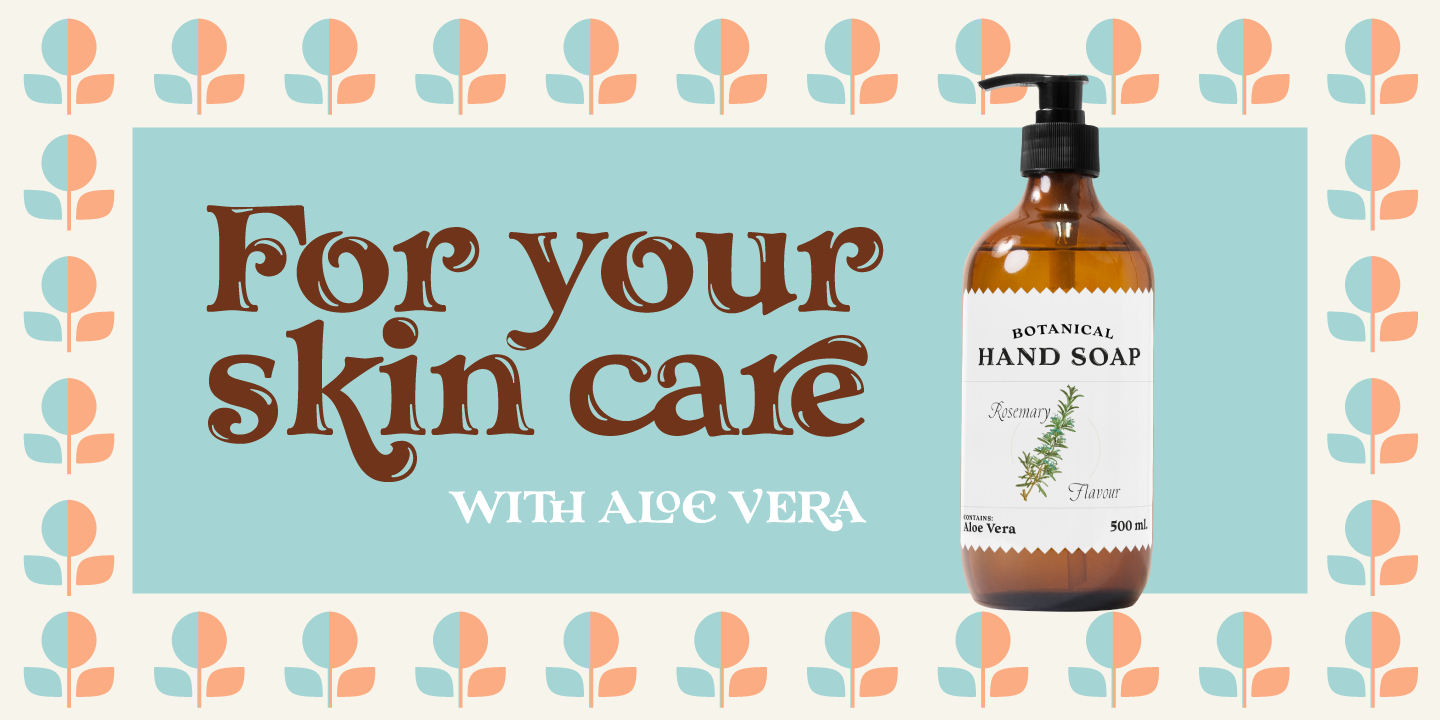
The Nostalgia Font is perfect for vintage branding projects, retro poster designs, classic book covers, old-fashioned signage, heritage brand logos, antique shop materials, nostalgic greeting cards, historical documentaries, vintage wedding invitations, and timeless advertising campaigns.
What makes the Nostalgia Font exciting is its remarkable ability to transport viewers back in time through carefully crafted letterforms that embody the elegance and sophistication of bygone eras. This enchanting typeface features classic proportions, traditional character shapes, and timeless design elements that evoke memories of handwritten letters, vintage manuscripts, and cherished family heirlooms. Each character tells a story of craftsmanship and attention to detail from an age when typography was truly an art form.
The Nostalgia Font family includes regular, italic, bold, and ornamental versions, along with decorative flourishes, vintage ornaments, and period-appropriate symbols that enhance its authentic historical appeal across various design applications.
Whether you're creating heritage brand identities or designing period-accurate materials, Nostalgia Font Free Download brings authentic vintage charm and timeless elegance to every project. Its meticulously crafted letterforms ensure excellent readability while maintaining that essential old-world character that connects with audiences across generations. The font's OpenType features include historical ligatures, contextual alternates, and decorative swashes that automatically enhance traditional typography standards. Heritage brands and vintage enthusiasts consistently choose this font for projects requiring genuine historical authenticity and classic appeal. The Nostalgia Font transforms modern text into treasured vintage communication, making it an essential component of any designer's classic typography archive.